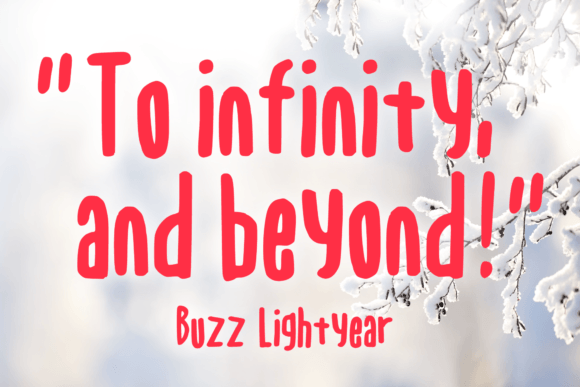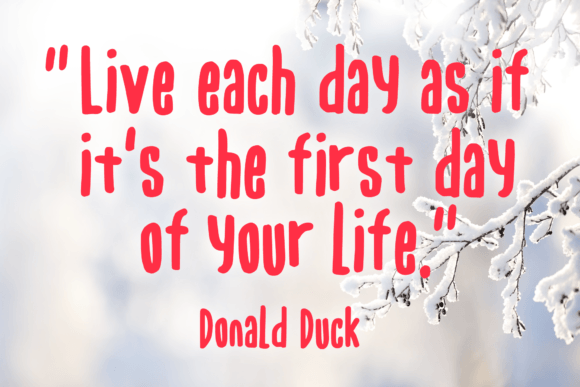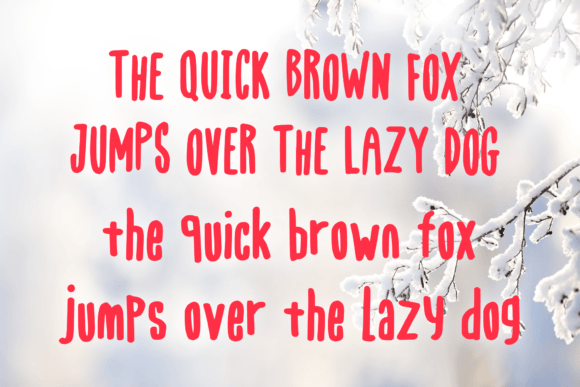
Rudolph the Deer Font
About Rudolph the Deer Font
Rudolph The Deer is a cool handwritte
About Rudolph the Deer Font
Add Character with Rudolph the Deer
Looking to give your design a playful, handmade vibe? The Rudolph the Deer font download brings a fun and casual style created with a real marker. It’s perfect for a variety of creative projects that call for an authentic handwritten touch.
Perfect for All Creative Occasions
This font works beautifully for both print and digital media. Whether you’re designing for kids or just want a relaxed, informal feel, this font has you covered. Ideal uses include:
• Children’s books and illustrations
• Holiday greeting cards and fun invitations
• T-shirt graphics and stickers
• Posters, planners, and scrapbooking
Its playful and approachable appearance ensures that it blends well with a wide range of design themes.
Designed for Versatility
Thanks to its casual strokes and natural flow, Rudolph the Deer is incredibly flexible. It adds a unique personal feel to social media posts, classroom materials, DIY crafts, and custom branding alike.
n font made with a real marker. You can use it for anything ranging from t-shirts, kids’ book designs, and greeting cards to stickers and posters, or anything that needs a casual touch. Fall in love with its incredibly versatile style and use it to create lovely designs!